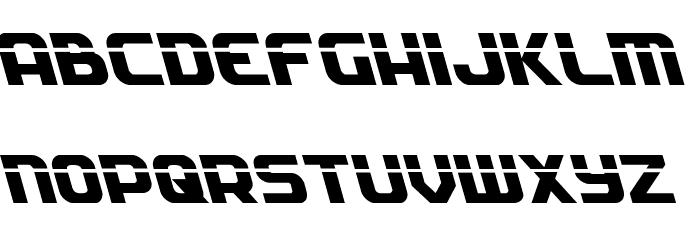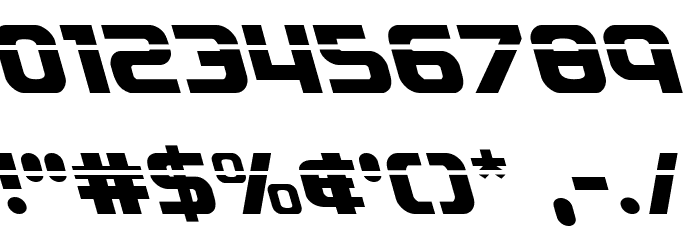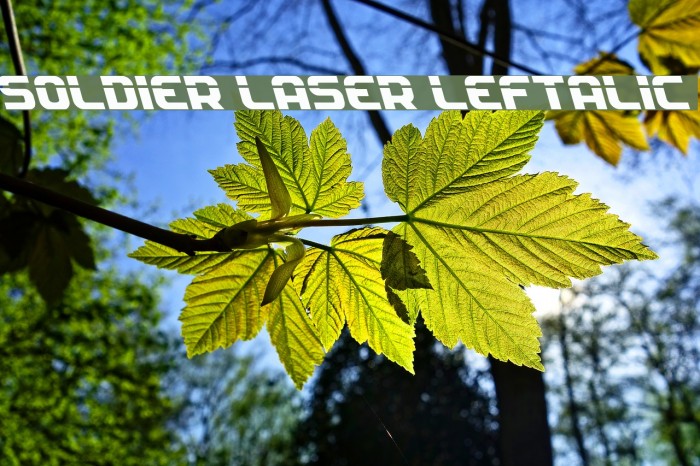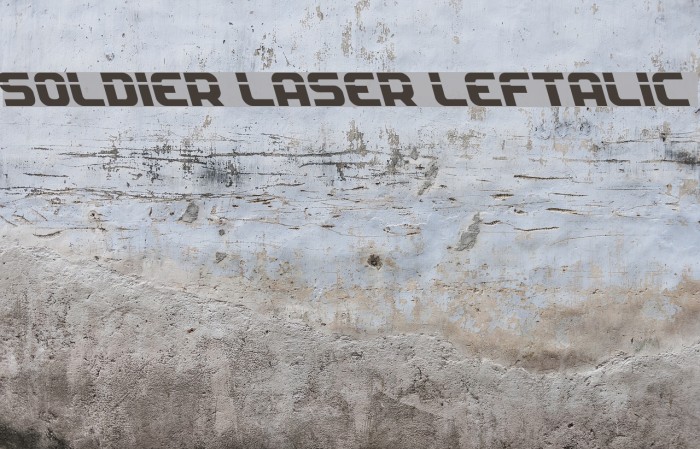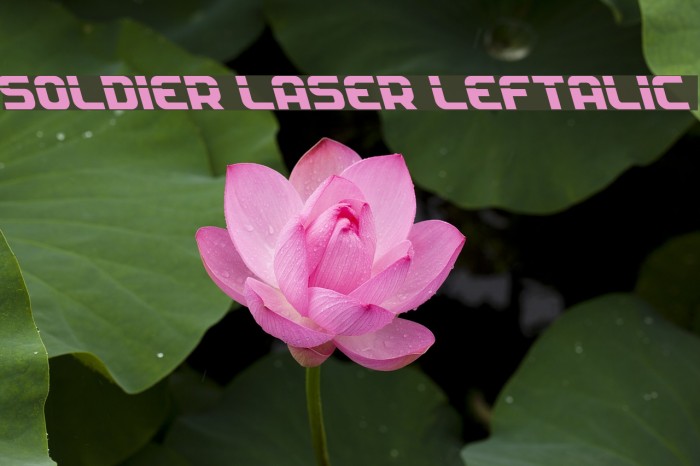
Soldier Laser Leftalic Font
This font features a bold, futuristic design with angular, geometric shapes that convey a sense of speed and modernity. The characters are slanted, giving an italicized appearance that enhances the dynamic feel. The strokes are thick and consistent, providing a strong visual impact. The overall style is reminiscent of sci-fi and technology themes, making it suitable for projects that require a bold and modern aesthetic. The spacing between characters is tight, contributing to its compact and cohesive look.
A bold, futuristic font with angular, italicized characters and a strong visual impact.
- Proposed Projects: Ideal for sci-fi themed posters, video game titles, technology branding, and futuristic event flyers.
- Character Spacing: Tight